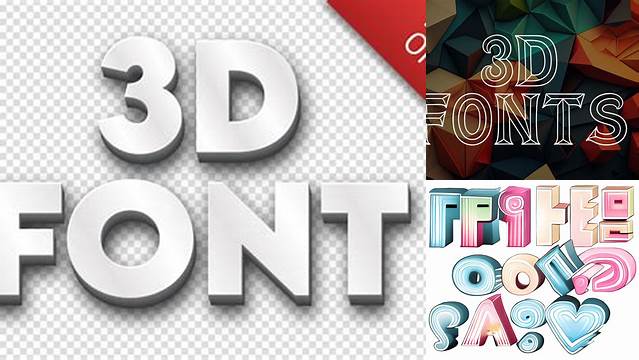
Free 3D Fonts: Cool Fonts For Your Designs
3D Font Free Online: Unleash Your Creativity with Stunning Typography
Hey everyone! Are you looking to jazz up your designs, presentations, or social media posts with some seriously cool text? Well, you're in luck because we're diving into the awesome world of 3D fonts free online! It's a fantastic way to add depth, personality, and a touch of flair to your projects. Whether you're a seasoned designer or just starting out, the availability of these fonts online opens up a universe of creative possibilities. We'll explore how to find these gems, how to use them, and how they can elevate your visual content. So, buckle up, and let's get started!
Why 3D Fonts are a Game Changer
3D fonts aren't just about adding a third dimension; they're about making your text pop, grab attention, and leave a lasting impression. In a world saturated with visual content, standing out is key, and these fonts are a powerful tool to achieve that. Think about it: a flat, standard font can easily blend into the background, but a well-chosen 3D font immediately draws the eye. They bring a level of visual interest that can transform the overall look and feel of your project.
Imagine creating a logo that looks like it's leaping off the screen or designing a social media graphic that practically shouts for attention. 3D fonts make this possible. They offer a range of styles, from sleek and modern to bold and playful, allowing you to perfectly match your text to your brand or message. They're particularly effective for titles, headings, and anything you want to highlight. Also, they are great to use in presentations, website headers, and even printed materials like posters and flyers.
Moreover, using a 3D font demonstrates a level of creativity and attention to detail that can really impress your audience. It shows that you're willing to go the extra mile to create something unique and memorable. It's about making a statement, conveying a message, and making sure it sticks. Furthermore, the right font can communicate a brand's personality and values at a glance, which is crucial in today's competitive market. It's a subtle yet powerful way to build brand recognition and establish a strong visual identity. The use of 3D fonts can give a professional and eye-catching appearance, making your work look more polished and engaging. They can also improve the overall aesthetics, which can significantly impact audience engagement.
Ultimately, incorporating these fonts can be the difference between a project that's just okay and one that's truly exceptional. So if you're looking to level up your design game, incorporating 3D fonts should be at the top of your list!
Where to Find 3D Fonts Free Online
Don't forget to check out creative communities like Behance and Dribbble. Designers often share their work for inspiration, and you may find links to download the fonts used in their projects. This is a great way to discover new fonts and see how they're used in real-world designs. When browsing these platforms, always read the description or the designer's profile for details on the font license and how to obtain it.
Finally, when searching for 3D fonts free online, always prioritize reputable sources. Avoid downloading fonts from untrusted sites, as they may contain malware or be in violation of copyright laws. It’s always best to stick with well-known, established sites. By checking the licenses, you'll be using these fonts legally. Also, always save your downloads in a safe place and back them up to avoid losing your font library.
How to Use 3D Fonts in Your Designs
Okay, you've found some fantastic 3D fonts free online and downloaded them. Now, what? Using 3D fonts effectively involves more than just dropping them into your design. It’s about understanding how to leverage their unique characteristics to enhance your visual content. So, let's break down some key tips and techniques to help you get the most out of these cool fonts. Also, the best thing about 3D fonts is they work in a variety of design programs like Photoshop, Illustrator, and even Canva, making them accessible to everyone. The first step is knowing how to install your new font. This is usually as simple as double-clicking the font file and clicking “Install”.
First, consider the context of your design. Where will this font be used? What's the overall message you're trying to convey? A bold, chunky 3D font might be perfect for a headline, while a more subtle 3D effect could work for a body of text. Matching the font to your content is crucial to achieve the desired impact and ensure readability. The goal is to create something that's both visually appealing and effective. It’s all about finding the right balance.
Next, play with different effects and styles. Many design programs offer features that allow you to customize 3D fonts further. Experiment with shadows, highlights, and textures to create depth and realism. A well-placed shadow can make the font appear to pop off the page, while a subtle highlight can add a touch of shine. Also, you can experiment with the position of the light source to control the direction and intensity of the shadows. Some programs also allow you to adjust the bevel or extrusion to change the font’s depth, creating even more possibilities.
Another great tip is to combine 3D fonts with other design elements. You can pair them with images, backgrounds, and other fonts to create a cohesive and visually appealing design. Consider the color palette and style of your other design elements when choosing your 3D font. For example, a bold, geometric font might work well with a modern, minimalist design, while a more rounded font could fit a playful, fun aesthetic. Ensuring the 3D font complements your other elements makes your design look more professional and polished. Additionally, you can add elements like gradients, patterns, and textures to the text itself to further enhance its visual appeal.
Furthermore, keep readability in mind. While 3D fonts are visually striking, they can sometimes be harder to read than traditional fonts, especially at smaller sizes. When using 3D fonts, try to use them for headings and titles where legibility isn't as crucial. If you need to use them for body text, choose a font that is easy to read and ensure that the font size and spacing are appropriate. Also, you should always test your design to ensure that the font is readable across different devices and platforms. Check how it looks on mobile devices, desktops, and printed materials to ensure the clarity of your message.
Lastly, don't be afraid to experiment. Try different combinations, effects, and styles until you find what works best for your project. The world of 3D fonts offers endless possibilities, so have fun and let your creativity flow! It is all about seeing what works best and finding what best expresses your content! Don't be afraid to mix and match different 3D fonts and see what you can create!
Tips for Choosing the Right 3D Font
Alright, let's chat about picking the perfect 3D font. Choosing the right font is the cornerstone of any successful design, and with 3D fonts free online, it's more important than ever to make the right choices. There are a few critical elements to consider before you make your selection, from the message you want to convey to the technical aspects of the font itself. Selecting the right font can be a journey, so let’s dive into some tips and tricks!
First, think about your project’s purpose. What are you trying to communicate? Is it a serious topic, or a playful one? The font should match the tone and style of your project. For example, a futuristic project might benefit from a sleek, geometric 3D font, while a retro-themed project might work well with a more vintage-inspired font. The right font should complement your message and make it more effective. Also, consider your target audience. What type of font will resonate with them? Consider their age, interests, and preferences when making your choice.
Next, consider readability. While 3D fonts are visually appealing, some can be challenging to read, particularly at smaller sizes or in long blocks of text. Always prioritize legibility, especially if the text will be the main focus of your design. If you need to use a 3D font for a lot of text, choose a font with clear letterforms and ensure that the size and spacing are appropriate. Also, make sure the font looks good in both large and small sizes. This way, your message won't be lost due to illegible fonts. Also, if the font is too complex, it could make your message hard to read.
Furthermore, look at the font's overall style. 3D fonts come in a variety of styles, from blocky and bold to sleek and elegant. Choose a font that fits your brand’s aesthetic and complements your other design elements. If you already have brand guidelines, try to pick a font that aligns with those guidelines. If you are trying to convey a sense of professionalism, choose a font that's clean and modern. If your goal is to be fun and creative, pick a font with a more playful vibe. You can even match the font to your brand's color palette to create a unified look.
Also, test your chosen font. Before you commit to using a 3D font in your final design, test it out. Preview it in different sizes, colors, and backgrounds to see how it looks. See if it holds up on different devices. This will save you from any unwanted surprises. You can also preview the font with your copy to make sure that it’s the right font for your content. Also, try the font on your design with different backgrounds.
Finally, consider the technical aspects. Is the font compatible with your design software? Does it come in a variety of weights and styles? Can it be easily modified to suit your needs? You may need to find a different font if it’s not compatible with your software. So, make sure that you've got a font that works well and is adaptable. Also, make sure the font has the characteristics that you need to fit your design. Also, make sure the font's format is compatible with the programs you're using. Consider whether you need different weights and styles.
Avoiding Common Mistakes with 3D Fonts
Okay, let's talk about some common blunders to sidestep when using 3D fonts. While these fonts are amazing, it’s super easy to make mistakes. So, we’re going to highlight some mistakes to help make your designs shine. Also, remember that knowing what to avoid is just as important as knowing what to do. Let's get you on the right track!
One of the biggest mistakes is overusing 3D fonts. They're eye-catching, but too much of a good thing can overwhelm your audience. If you use them everywhere, they lose their impact and can make your design look cluttered and unprofessional. Always be strategic about where you use them. Also, a good approach is to use them sparingly, for headings and titles. Also, stick to a few carefully selected spots where you want to draw attention. It is all about striking a balance between eye-catching and being too much.
Another common pitfall is choosing a font that’s hard to read. Some 3D fonts are designed more for aesthetics than legibility, especially at smaller sizes. Always make sure the font is clear and easy to read, especially for important information. Also, if your audience struggles to read the text, they'll likely lose interest. You might want to pick another font if readability is poor. Also, you might want to try a different font if you’re struggling to read the text.
Also, a mistake to avoid is neglecting the background. The background can either make or break your design. It has to complement your font. Don't forget to consider the colors, patterns, and images behind your 3D font. A good background can make your text stand out, while a bad one can make it difficult to see. If the background is too busy, the font might get lost. Make sure there’s enough contrast between the font and background. Also, make sure the background doesn’t distract from the message.
Moreover, another mistake is using a 3D font that doesn't fit your brand. Every font communicates something. If the font doesn't match your brand identity or the message, it can confuse your audience and hurt your brand image. Always pick a font that reflects your brand's personality. Also, make sure the style and tone of the font align with your brand's voice. Using the wrong font can lead to a disconnect, so make sure that the font’s vibe matches your brand's purpose. Your design should feel cohesive and make sense for your brand.
Finally, it’s important to avoid not testing your design. Always test your design on various devices and platforms. What looks great on your desktop might look terrible on a phone. Test your design on different devices. Test how it looks when it's printed, and make sure the resolution is appropriate. Also, if your design doesn't translate well on different devices, you'll be missing out on a big part of your audience. Testing can save you a lot of issues down the road.
Conclusion: Get Creative with 3D Fonts
Alright, guys, we've covered a lot today! We've explored the magic of 3D fonts free online, from finding them to using them and even dodging some common mistakes. Remember, these fonts are a powerful tool to take your designs to the next level. They can grab attention, create a lasting impression, and give your projects a unique edge. Also, with the wealth of free options available, there's no limit to what you can create.
So go forth and experiment! Try out different styles, play with effects, and don't be afraid to break the rules. The most important thing is to have fun and let your creativity shine. Start exploring the many options out there to bring your content to life. Experiment with different combinations until you find what works best for you. The journey of discovery is part of the fun! With practice and creativity, you can transform your designs and elevate your visual content. Also, use these 3D fonts to create something stunning! Remember to always be creative, original, and authentic!